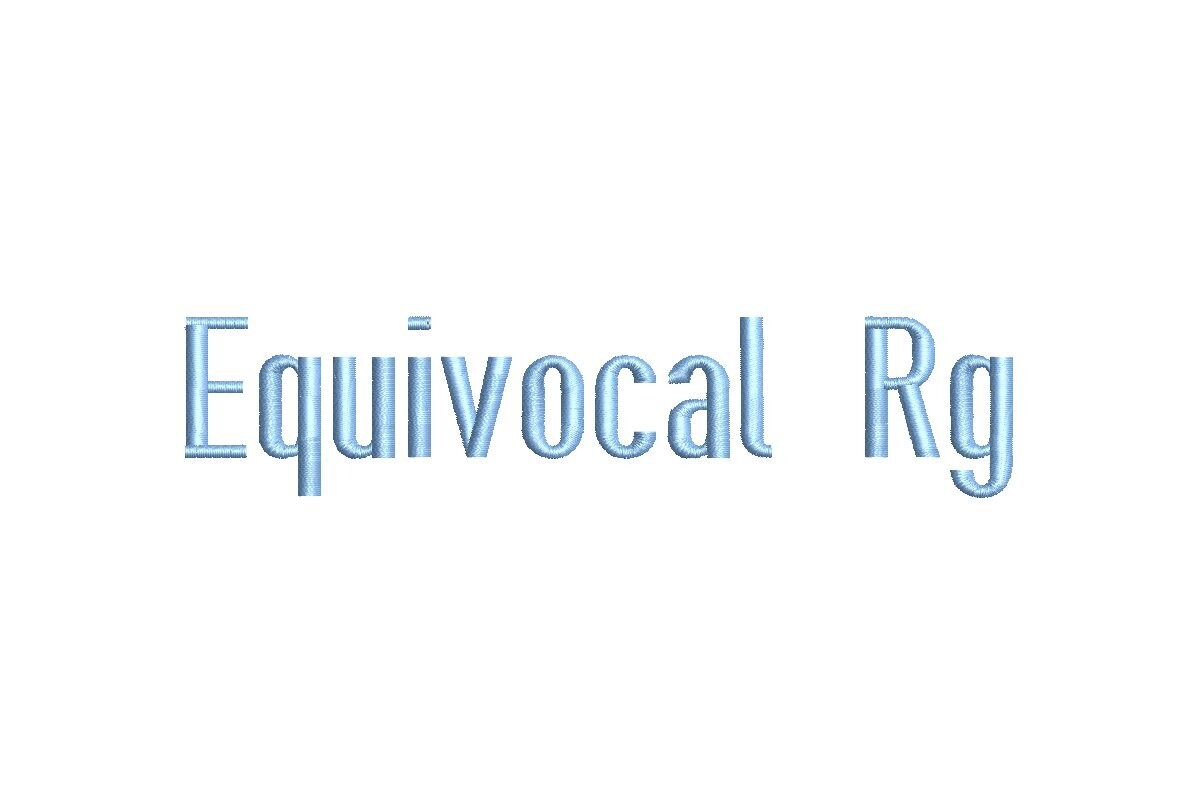
Introducing Equivocal Rg ESA Font - Your Gateway to Remarkable Embroidery! Expertly tailored for seamless compatibility with Wilcom Studio e4.5.6 and Hatch 3 versions and beyond, this font is the key to unlocking exceptional embroidery creativity. Its refined, captivating design imbues your projects with distinctive charm, ensuring they effortlessly stand out. Achieve unparalleled precision with this user-friendly digitized font, guaranteeing perfection in every stitch. Dive into a world of limitless creative possibilities with Equivocal Rg ESA Font, and elevate your Wilcom Studio and Hatch software. Bid farewell to the ordinary - upgrade today for an extraordinary embroidery journey. Your masterpieces deserve the best.